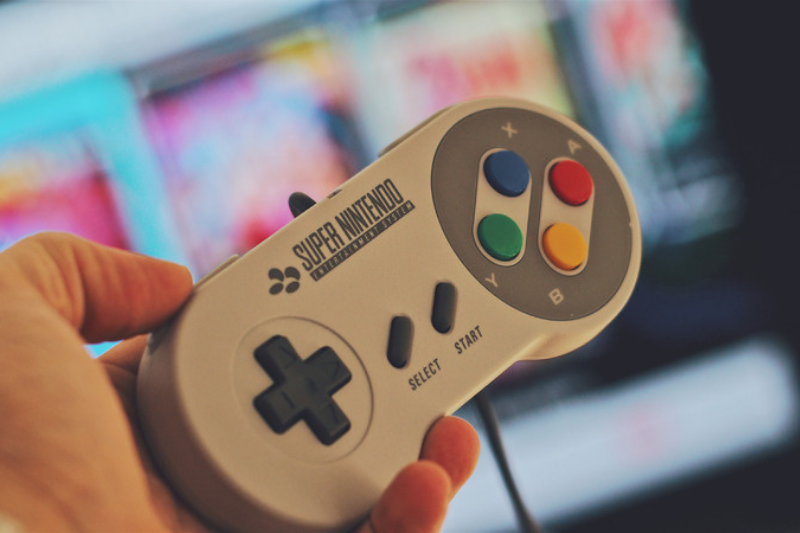
Nintendo Font Generator
Recreate the iconic Nintendo look with this free Nintendo font generator. Great for gaming thumbnails, fan art, and retro-style projects β€” no design skills needed.
About the Nintendo Font Generator
The Nintendo brand has one of the most recognizable typographic identities in gaming history. Its chunky, rounded letterforms and bold color palette have been synonymous with fun and adventure since the early console days. Whether you're a lifelong fan or working on a gaming-themed project, the Nintendo font style brings instant nostalgia and credibility to any design.
• Fan-made game thumbnails and YouTube covers
• Gaming party invitations and decorations
• Twitch stream overlays and channel banners
• Custom gaming merchandise
• Retro gaming blog and social media graphics